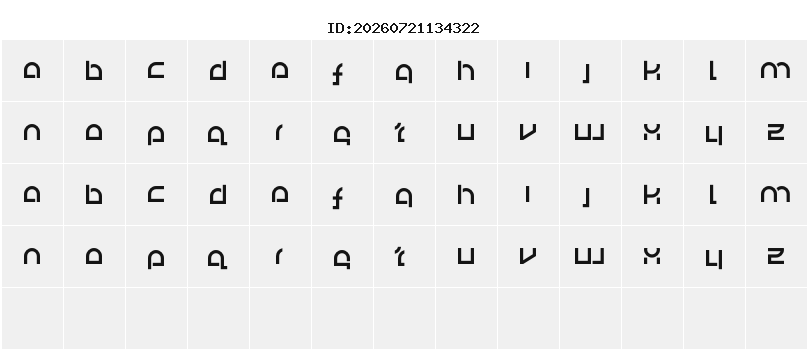
• Font Name: FertigBauHaus
• Font ID: DavidHubner,formlos: FertigBauHaus: 2005
• Full Font Name: FertigBauHaus
• PostScript Name: FertigBauHaus
• Designer: David Hubner, formlos
• Manufacturer: David Hubner, formlos
• Description: formlos FertigBauHaus, Bastard Projekt Edition
About FertigBauHaus.otf
FertigBauHaus.otf is a modern, elegant sans-serif font designed for ultimate readability and visual harmony. Perfect for branding, headlines, web design, and print materials.